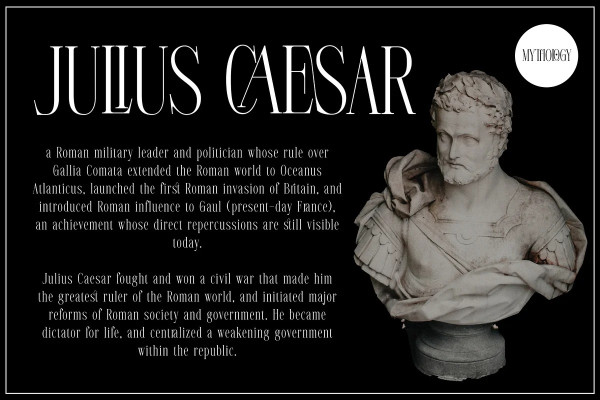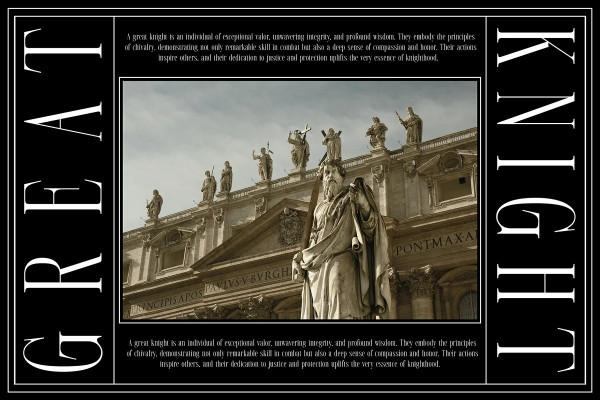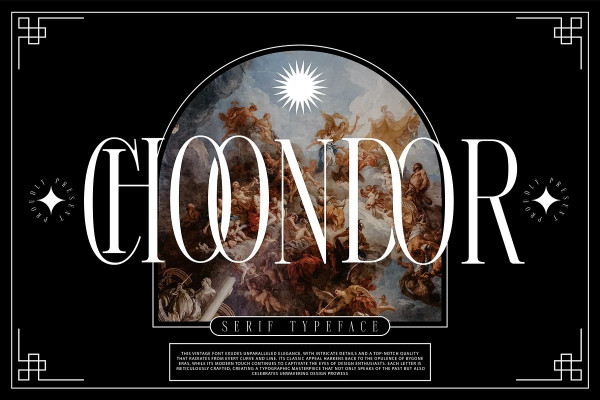
Choondor Font
Choondor Font, a simple and serif font. So perfect for you who needs a typeface for logo designs, magazine, social media, brochure, and many more.